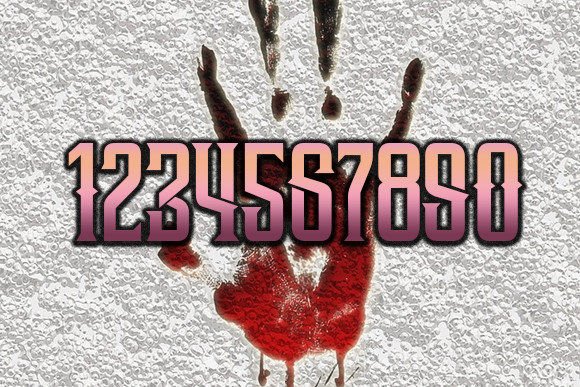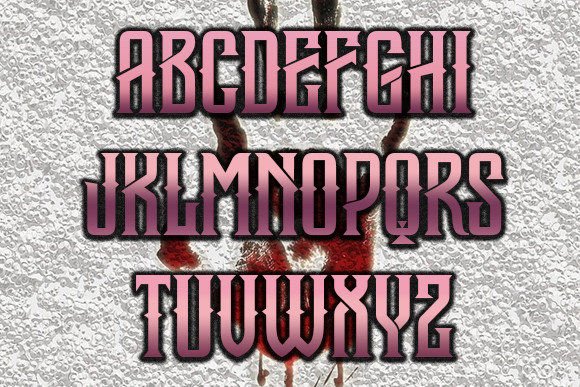
The Ultimate Guide to Dirty Crown Font: Unleash Your Creativity
I’ll never forget the time I was working on a Halloween-themed project for a client, and I just couldn’t find the right font to match the spooky vibe. I scrolled through page after page of Google Fonts, but nothing seemed quite right. That was until I stumbled upon the Dirty Crown font. It was love at first sight! 😍 This gothic black letter typeface was exactly what I needed to bring my design to life. In this article, I’ll share my experience with Dirty Crown, its features, and how to make the most of it in your creative projects.
An Honest Review of Dirty Crown Font
What I Love About Dirty Crown ✨
- 💀 **Gothic Black Letter Style**: Dirty Crown’s bold, dramatic design is perfect for making a statement in any project.
- ✅ **Highly Versatile**: Whether you’re designing t-shirts, bold projects, or banners, this font fits seamlessly into any creative design.
- 🎨 **OpenType Features**: With a range of OpenType features, glyphs, and stylistic alternates, you can customize your text to fit your project’s unique style.
While Dirty Crown is an amazing font, there are a few things to keep in mind:
- ⚠️ **Legibility at Small Sizes**: Due to its bold and ornate design, Dirty Crown can be difficult to read at small font sizes. It’s best used at larger sizes where its details can shine.
- ⚠️ **Limited Use in Body Text**: Because of its decorative nature, Dirty Crown is not suitable for body text. It’s best used for headlines, titles, or short phrases.
The Backstory of Dirty Crown Font
Dirty Crown was designed with one goal in mind: to create a bold, eye-catching gothic black letter font that would inspire creativity. The designer aimed to craft a font that would be both elegant and edgy, perfect for a wide range of creative projects. Although the designer’s identity might be shrouded in mystery, their passion for typography and design shines through in every detail of Dirty Crown.
Q: What type of projects is Dirty Crown best suited for?
A: Dirty Crown is perfect for projects that require a bold, gothic look, such as Halloween-themed designs, t-shirts, posters, and banners.